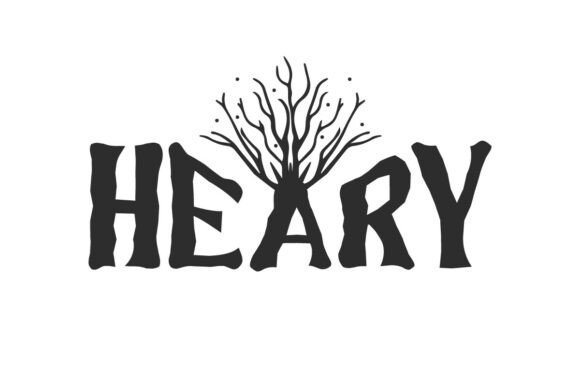
Introduction to Heary Font
Connect with the raw, untamed beauty of nature using Heary font, an organic decorative typeface that feels as if it were carved directly from the woods.
This Heary typeface is defined by its irregular, hand-drawn edges and earthy weight, making it the ultimate tool for “cabin-core” aesthetics, outdoor adventure branding, and artisanal products The Heary font includes unique illustrative elements—as seen in the striking tree-branch motif—that allow you to create a complete visual identity within a single wordmark.
Key Features of Heary Font
Why Choose Heary Font?